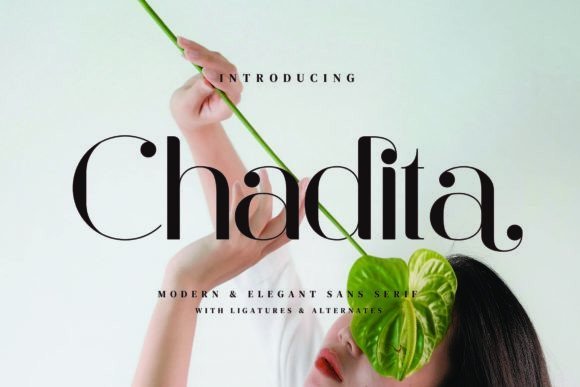
The Perfect Canvas for Your Creativity: Introducing Chadita Font
Do you remember the moment when a font choice made all the difference in your design project? The perfect typography can elevate your work from good to great, and for many designers, that moment comes when they discover the right serif font. For those who have been searching for the perfect companion to bring their ideas to life, we’re excited to introduce Chadita Font, a beautiful serif font inspired by the simplicity of a famous minimalist logo.
Designed to perfection for various design purposes, Chadita Font is perfect for creating templates, brochures, videos, advertising branding, logos, invitations, and more. Its elegant and refined look makes it a valuable addition to any designer’s toolkit. Whether you’re working on a beauty design project or crafting a layout for a brochure, Chadita Font is sure to bring a touch of sophistication to your work.
- Unique Characteristics: Chadita is a sans-serif font with a modern and clean design, featuring a unique blend of geometric and organic shapes. It has a high x-height, making it highly legible, and a wide range of weights and styles to suit various design needs.
Chadita Font Review
I’ve had the chance to work with the Chadita font, and I must say it’s an interesting addition to the typography world. ✨ One of its standout features is its unique blend of modern and traditional elements, which makes it perfect for designers looking to add some personality to their projects.
- ✨ The font’s versatility is one of its biggest strengths – it can be used for a wide range of applications, from logos and branding to body text and headings.
- ✨ The font’s unique flair also makes it an excellent choice for creative projects, such as posters, flyers, and other marketing materials.
- ✨ The font’s high level of detail and sophistication makes it suitable for use in corporate environments.
However, I do have a few concerns about the font’s limitations. ⚠️ One of the main issues I’ve noticed is that the font can be quite difficult to read in certain contexts, particularly in smaller font sizes.
- ⚠️ The font’s high level of detail can also make it challenging to use for large blocks of text, as it can become overwhelming for the reader.
- ⚠️ The font’s unique style may not be to everyone’s taste, which could limit its appeal in certain design contexts.
Overall, I think the Chadita font has a lot of potential, but it’s not without its limitations. While it excels in certain areas, it may not be the best choice for every project. With careful consideration and use, however, it can be a valuable addition to any designer’s toolkit.
Tips for Getting the Most Out of Chadita Font
Chadita Font is a versatile and elegant font that can be used in a variety of contexts. Here are some tips for getting the most out of it:
- Use Chadita Font for headings and titles to add a touch of sophistication.
- Pair Chadita Font with a bold or sans-serif font for a striking contrast.
Alternatives to Chadita Font for Designers
Lato Font is a modern sans-serif font that is perfect for creating a clean and minimalist design. It is ideal for use in headings, titles, and body text where a clear and readable font is required. Lato Font is similar to Chadita Font in its clean and simple design, but it has a slightly more geometric and modern feel. Use Lato Font when you need a font that is easy to read and looks great in a variety of contexts.
Montserrat Font is a sans-serif font that is designed for use in urban environments. It has a strong and geometric feel that makes it perfect for use in headings and titles. Montserrat Font is similar to Chadita Font in its modern and clean design, but it has a slightly more dramatic and bold feel. Use Montserrat Font when you need a font that is strong and eye-catching.
Is Chadita available in different font weights and styles?
Yes, Chadita is available in multiple font weights and styles, including light, regular, bold, and italic. This allows designers to choose the perfect weight and style to match their design requirements. The font also includes a range of language support, including Latin, Cyrillic, and Greek scripts.